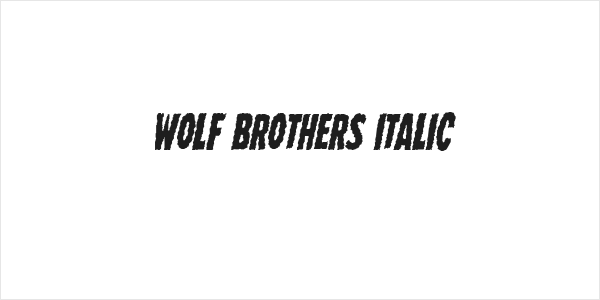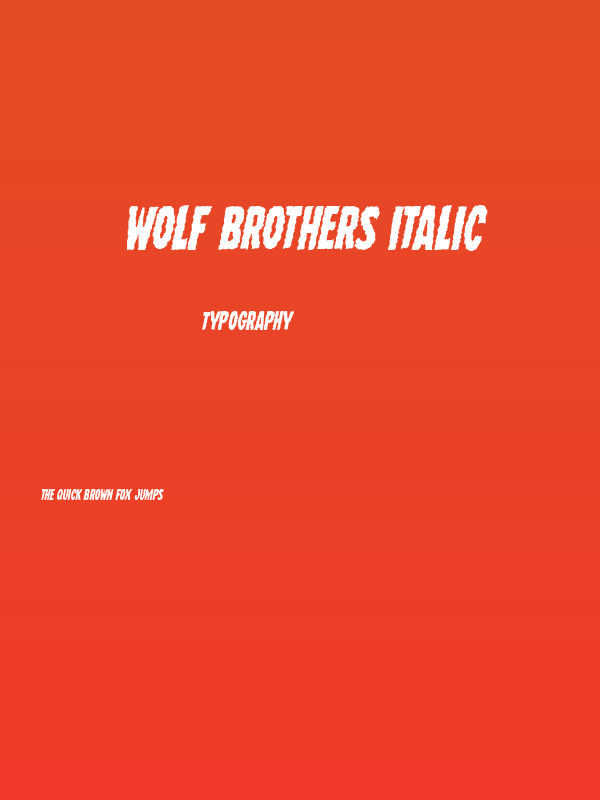
Wolf Brothers Italic Font
Wolf Brothers Italic Description
This font exhibits a bold and dynamic style with a strong italic slant, giving it a sense of motion and energy. The characters are thick and robust, with a slightly rough texture that adds a rugged, edgy feel. The uppercase and lowercase letters maintain consistent proportions, while the numerals and special characters are designed to match the overall aesthetic. The font's boldness and unique texture make it stand out, suitable for creating impactful designs.
| Overall Style | Dynamic and Edgy |
| Proposed Projects | Ideal for sports branding, action movie posters, dynamic advertisements, and edgy graphic designs. |